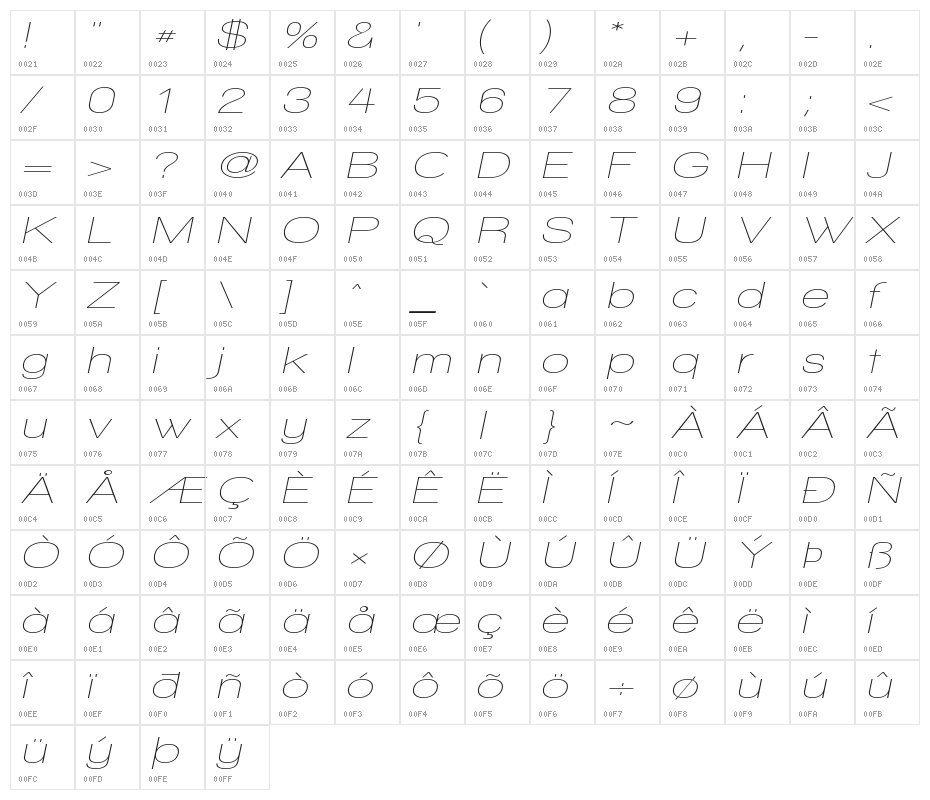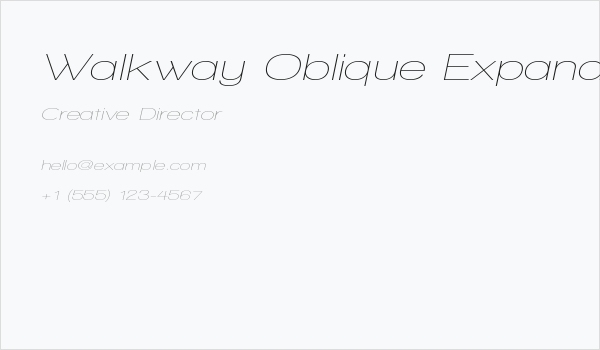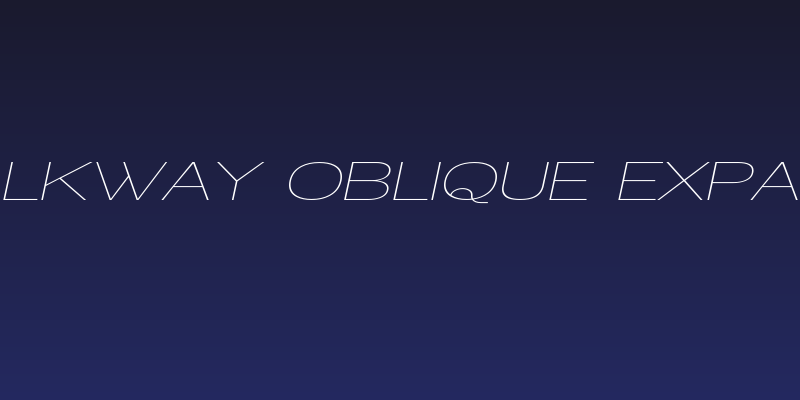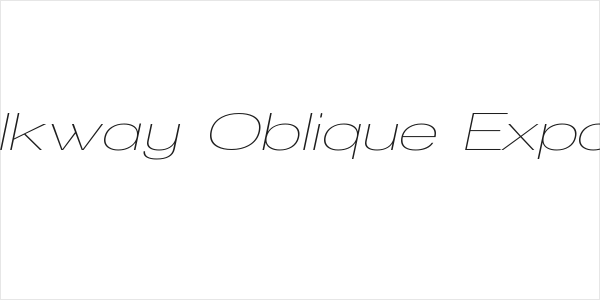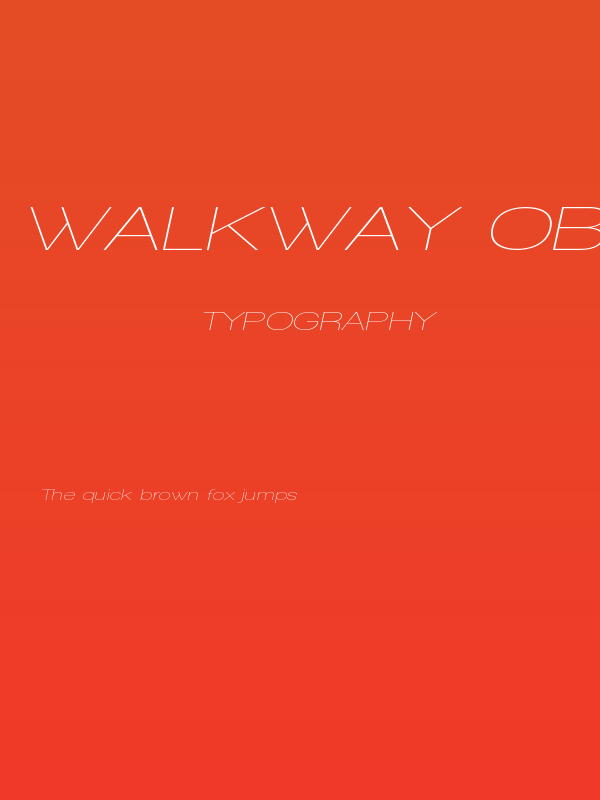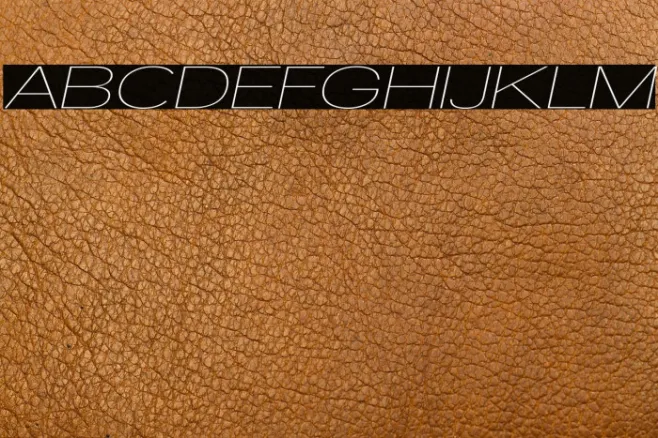
Walkway Oblique Expand Font
Walkway Oblique Expand Description
This font features a sleek, modern design with an oblique orientation, giving it a dynamic and forward-leaning appearance. The characters are thin and elongated, contributing to a sense of elegance and sophistication. The font maintains a consistent stroke width throughout, which adds to its minimalist aesthetic. The spacing between characters is relatively wide, enhancing readability and providing a clean, airy feel. The numerals and special characters are designed to match the overall style, ensuring uniformity across all text elements.
| Proposed Projects | Ideal for modern branding, fashion magazines, tech company logos, and minimalist design projects. |